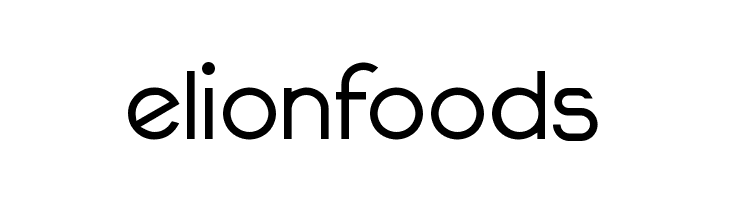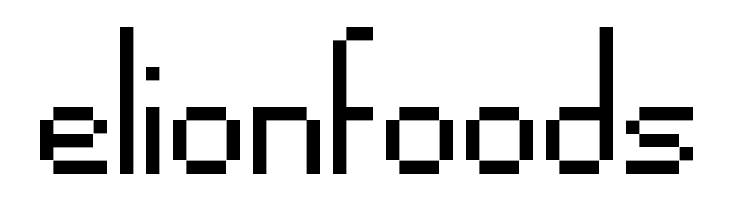
( Jecko Development - www.jeckodevelopment.com/ )
A decorative font made of heart shapes, perfect for romantic and playful designs.
( Jeff Bensch - jbensch.deviantart.com )
A modern, geometric sans-serif font with a clean and balanced design.
( Jen Jones - www.jenjonesfonts.com )
A playful, dot-connected font with a whimsical and creative style.
( Luc Mahler )
An ornate and decorative font with intricate swirls and flourishes.
( Luc Mahler )
A modern, geometric font with a unique cut-out, stencil-like design.
( Malre - David Masson Alalire - www.facebook.com/Community-Search-146103155534356/ )
A decorative and artistic font with bold, angular uppercase letters and whimsical lowercase forms.
( Markus Schröppel - www.mschroeppel.de/ )
A modern, dotted font with a geometric and digital aesthetic.
( MatreroG )
A geometric, angular font with a modern and futuristic style.
( Mirz123 - Michelle Lehmann - www.scriptmonkeys.us )
A pixelated, retro font with a geometric, grid-like design.
( Odile Morales )
A geometric, multi-line font with a futuristic and digital aesthetic.